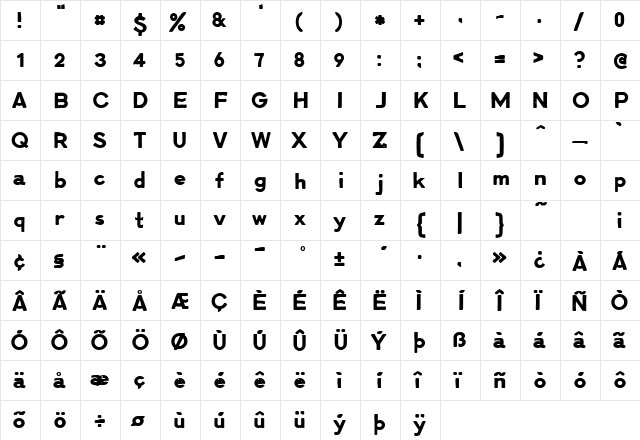
LLCharlotte Regular
Design Context for LLCharlotte Typeface
LLCharlotte is a composed and adaptable typeface that performs quietly and consistently across a wide range of design contexts.
Pro Tip: Pair LLCharlotte with a font of contrasting weight or personality to build a more expressive typographic hierarchy.